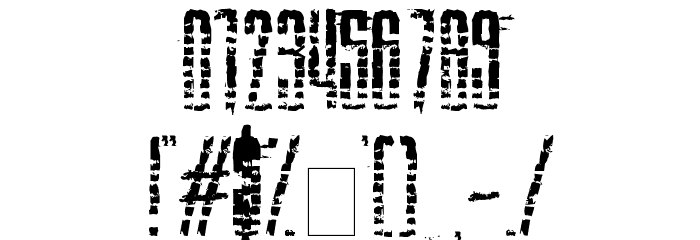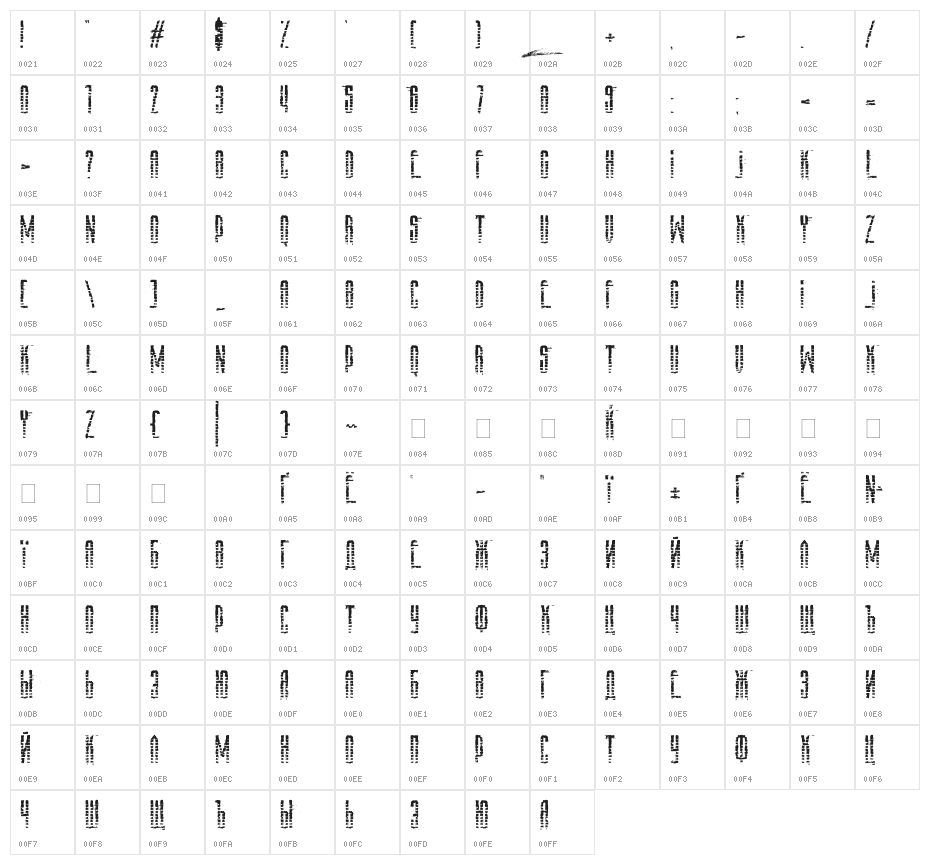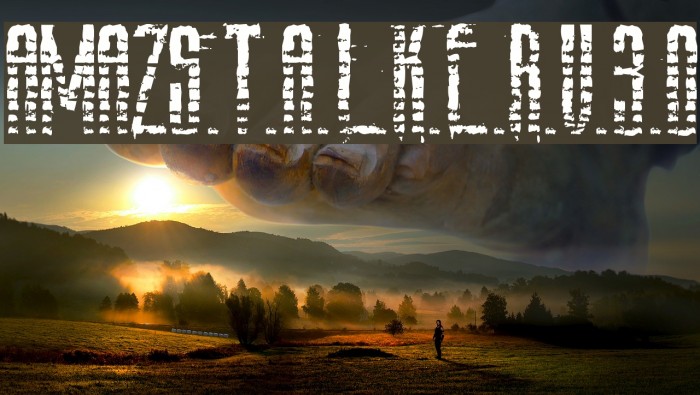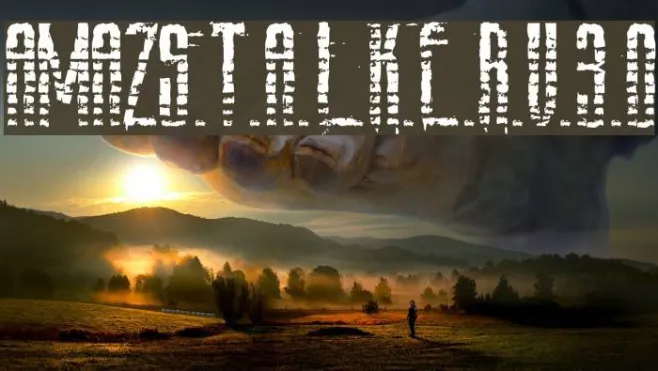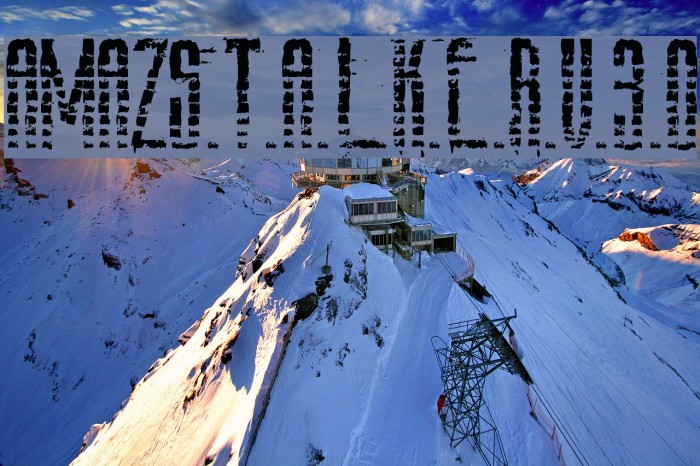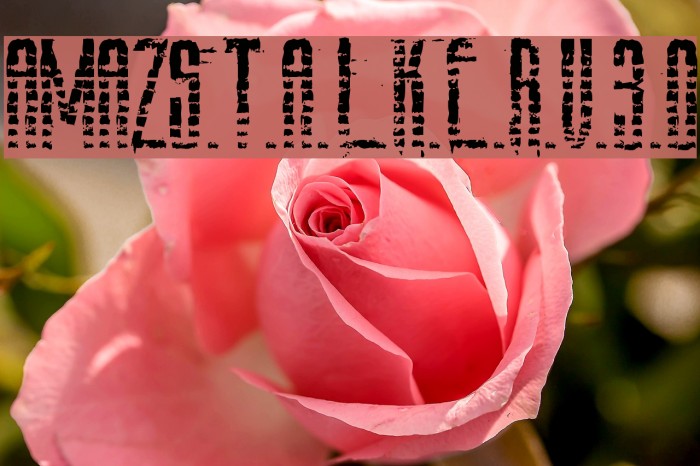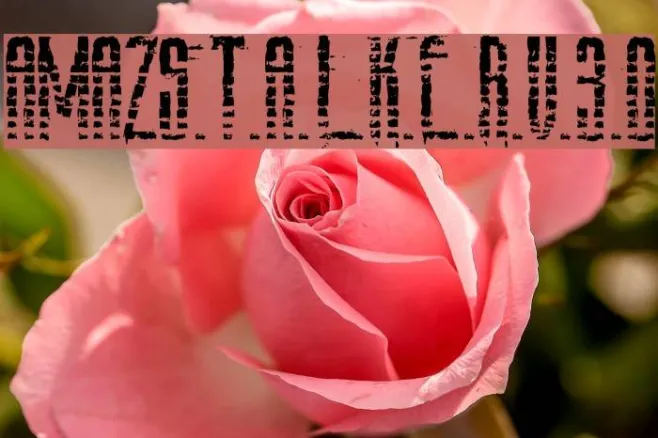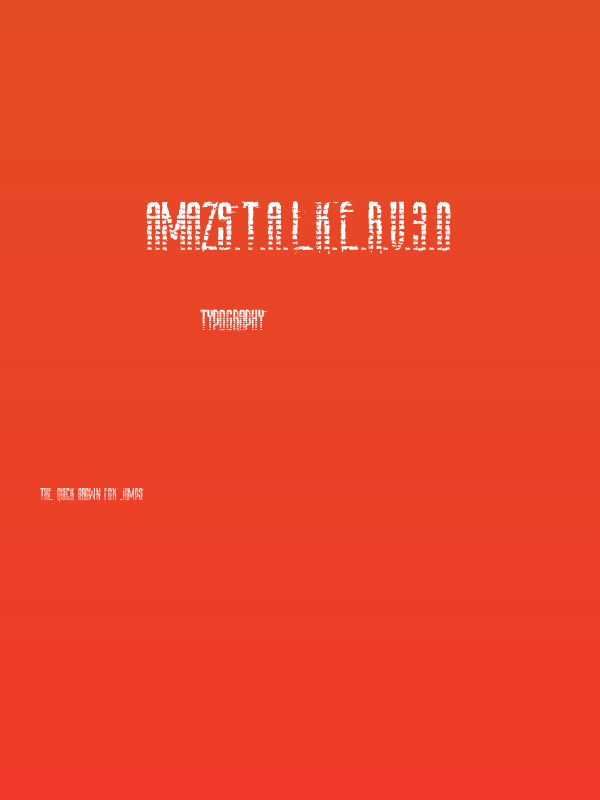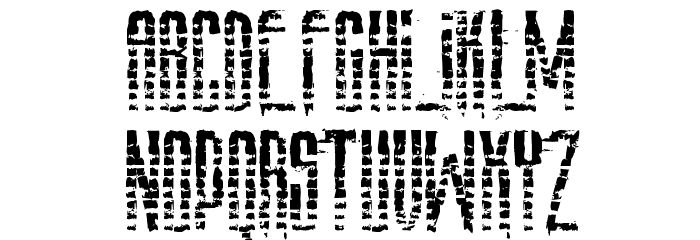
AmazS.T.A.L.K.E.R.v.3.0 Font
AmazS.T.A.L.K.E.R.v.3.0 Description
This font features a bold, distressed style with a rugged, textured appearance. The characters are uppercase and lowercase letters, numbers, and a selection of special characters. The design gives off an industrial, gritty vibe, making it suitable for projects that require a strong, impactful visual presence. The uneven edges and rough texture add a sense of dynamism and energy, while the overall structure remains clear and legible. This font is ideal for creating eye-catching headlines, posters, and branding materials that need a bold statement.
| Proposed Projects | Ideal for posters, branding, headlines, and any project needing a bold, gritty aesthetic. |